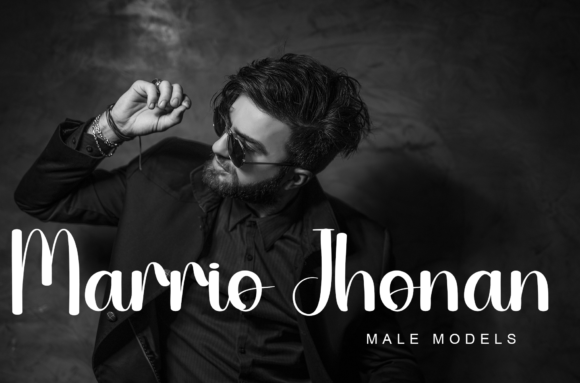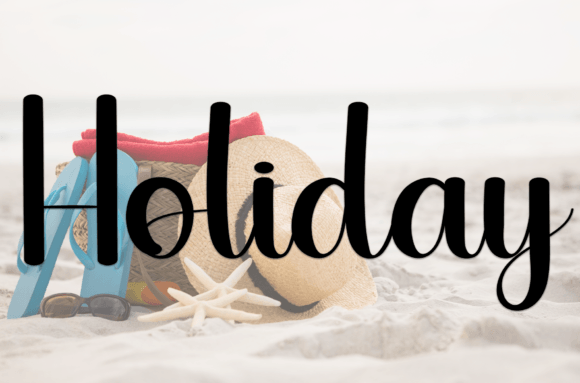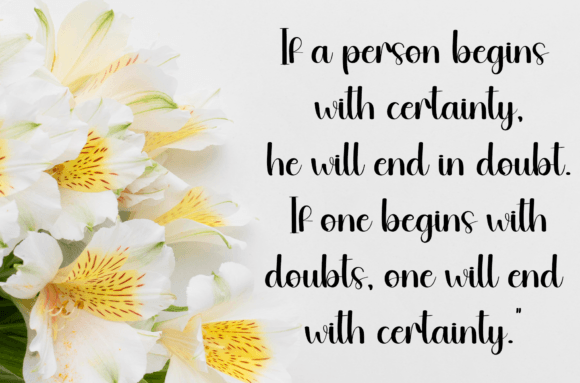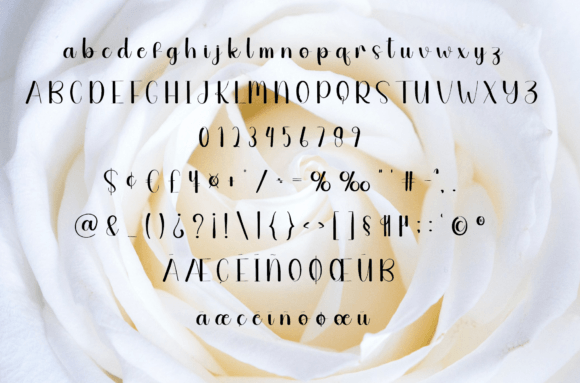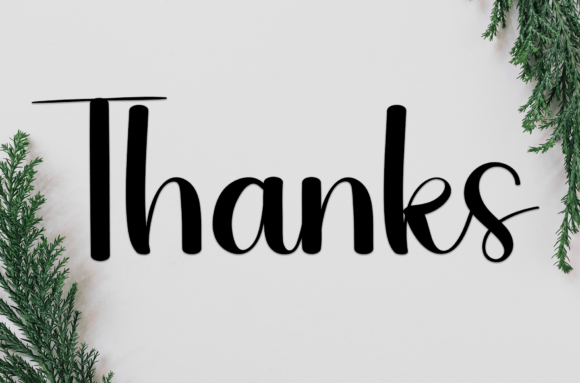
Discover the Charm of Beetle Font
Have you ever been rummaging through your grandmother’s attic, searching for inspiration? That’s exactly where I found myself one lazy Sunday afternoon. Amidst the dusty trinkets and vintage photographs, I stumbled upon an old wedding invitation, beautifully handwritten in a playful script. The moment I laid eyes on it, I knew I had to recreate that same warmth and charm in my designs.
That’s when I discovered Beetle Font – a sweet and friendly handwritten font that’s perfect for adding a personal touch to your designs. With its fun and relaxed vibe, Beetle Font is ideal for writing wedding invitations, cards, and any other design that needs a lovely touch. Whether you’re a seasoned designer or a creative enthusiast, Beetle Font is a valuable addition to your toolkit.
Beetle Font Key Features
- Unique Characteristics: Beetle Font features a unique, organic design with rounded edges and a subtle texture, giving it a friendly and approachable feel.
- Language Support: Beetle Font includes support for a wide range of languages, including Latin, Cyrillic, and Greek scripts, making it a versatile choice for global applications.
- Kerning and Ligatures: Beetle Font includes advanced kerning and ligature features, ensuring that text sets are visually appealing and easy to read.
Designer Review: Beetle Font
Overall, I think the Beetle Font is a unique and quirky addition to any design project. ✨ Its bold lines and playful curves make it perfect for adding a touch of whimsy to headings, logos, or even body text.
The Beetle Font has a great balance of modern and vintage elements, making it suitable for a wide range of designs. ✨ I particularly like the way it handles bold and italic text, which adds an extra layer of expressiveness to the font.
- Unique and playful design
- Great balance of modern and vintage elements
- Handles bold and italic text well
- Perfect for adding a touch of whimsy to designs
- May be too bold for certain designs or audiences
- Lack of subtlety in certain characters (e.g. ‘e’)
- Not suitable for formal or professional designs
- May be difficult to read at small font sizes
Overall, I think the Beetle Font is a great addition to any design project that needs a bit of personality. With its unique design and playful curves, it’s sure to add a touch of whimsy to any design. However, it may not be suitable for all projects or audiences, so be sure to use it wisely!
The Beetle Font is ideal for use in:
1. Retro-style designs.
2. Vintage-inspired graphics.
3. Minimalist branding.
4. Editorial content.
Alternatives to Beetle Font
Comparison to Beetle Font: While Beetle Font has a more playful and whimsical feel, Fontin is more formal and sophisticated. Beetle Font is better suited for children’s books or playful designs, whereas Fontin is better for corporate or editorial use.